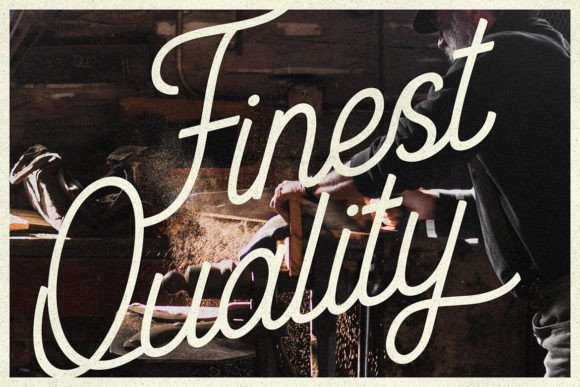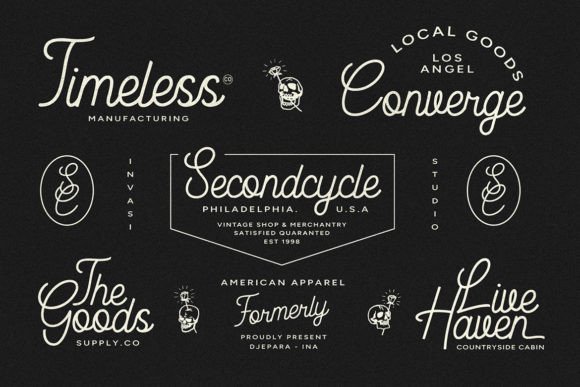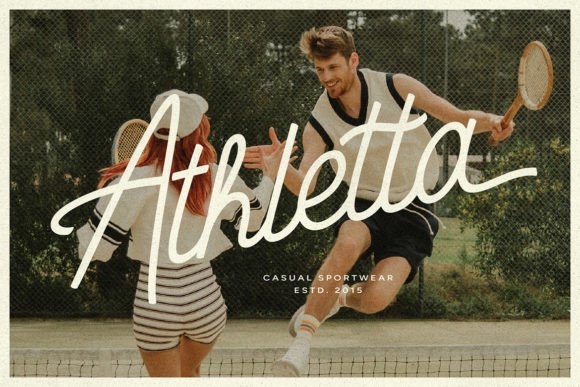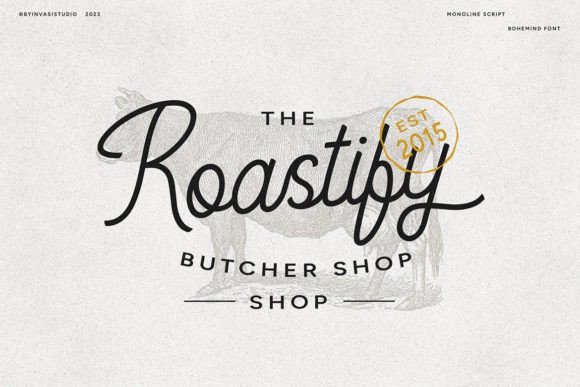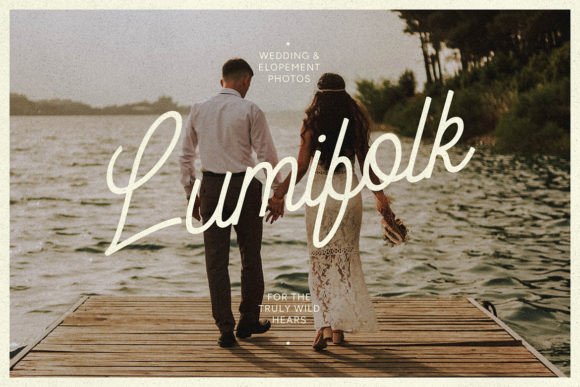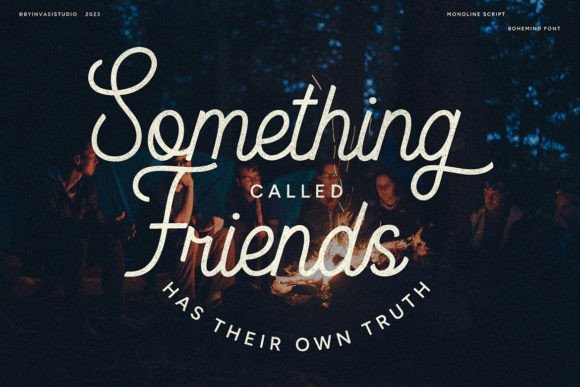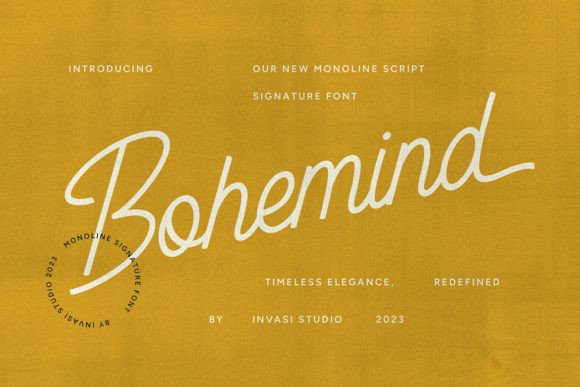
Introducing Bohemind Font: Elevate Your Design with a Stylish Monoline Signature Font
Are you on the hunt for a font that can add a touch of vintage charm to your design? Look no further than Bohemind, a stunning monoline signature script font that’s sure to turn heads. With its unique style and elegant features, Bohemind is the perfect choice for designers and crafters looking to create a standout design that exudes sophistication and style.
What Sets Bohemind Apart?
Bohemind’s distinctive monoline signature style is what sets it apart from other fonts. Its sleek, modern aesthetic is balanced by a vintage vibe that’s sure to add a touch of nostalgia to your design. Whether you’re working on a logo, wedding invitations, or a poster, Bohemind’s unique style ensures that your design will stand out from the crowd.
Features of Bohemind Font
Bohemind comes with a range of features that make it both stylish and practical. Some of its key features include:
- Ending Alternate Swashes: Add an extra touch of elegance to your design with Bohemind’s ending alternate swashes. These swashes can be used to add a flourish to your text, making it even more stylish and sophisticated.
- Ligatures: Bohemind’s ligatures ensure that your text flows smoothly and seamlessly, creating a natural and elegant look.
- Multilingual Latin Language Support: With support for multiple languages, Bohemind can be used for a wide range of design projects, no matter what language you’re working with.
Why Choose Bohemind Font?
So why should you choose Bohemind for your design project? Here are just a few reasons:
- Unique Style: Bohemind’s distinctive style ensures that your design will stand out from the crowd.
- Vintage Vibe: Add a touch of nostalgia to your design with Bohemind’s vintage-inspired aesthetic.
- Ease of Use: With its ligatures and swashes, Bohemind is easy to use and customize, making it perfect for designers of all levels.
- Versatility: Bohemind can be used for a wide range of design projects, from logos and wedding invitations to posters and more.
Design Ideas with Bohemind Font
Bohemind is a versatile font that can be used for a wide range of design projects. Here are a few ideas to get you started:
- Wedding Invitations: Add a touch of elegance and sophistication to your wedding invitations with Bohemind.
- Logos: Create a standout logo for your business with Bohemind’s unique style.
- Posters: Use Bohemind to create eye-catching posters that showcase your brand’s personality.
- Social Media Graphics: Add a touch of style to your social media graphics with Bohemind.